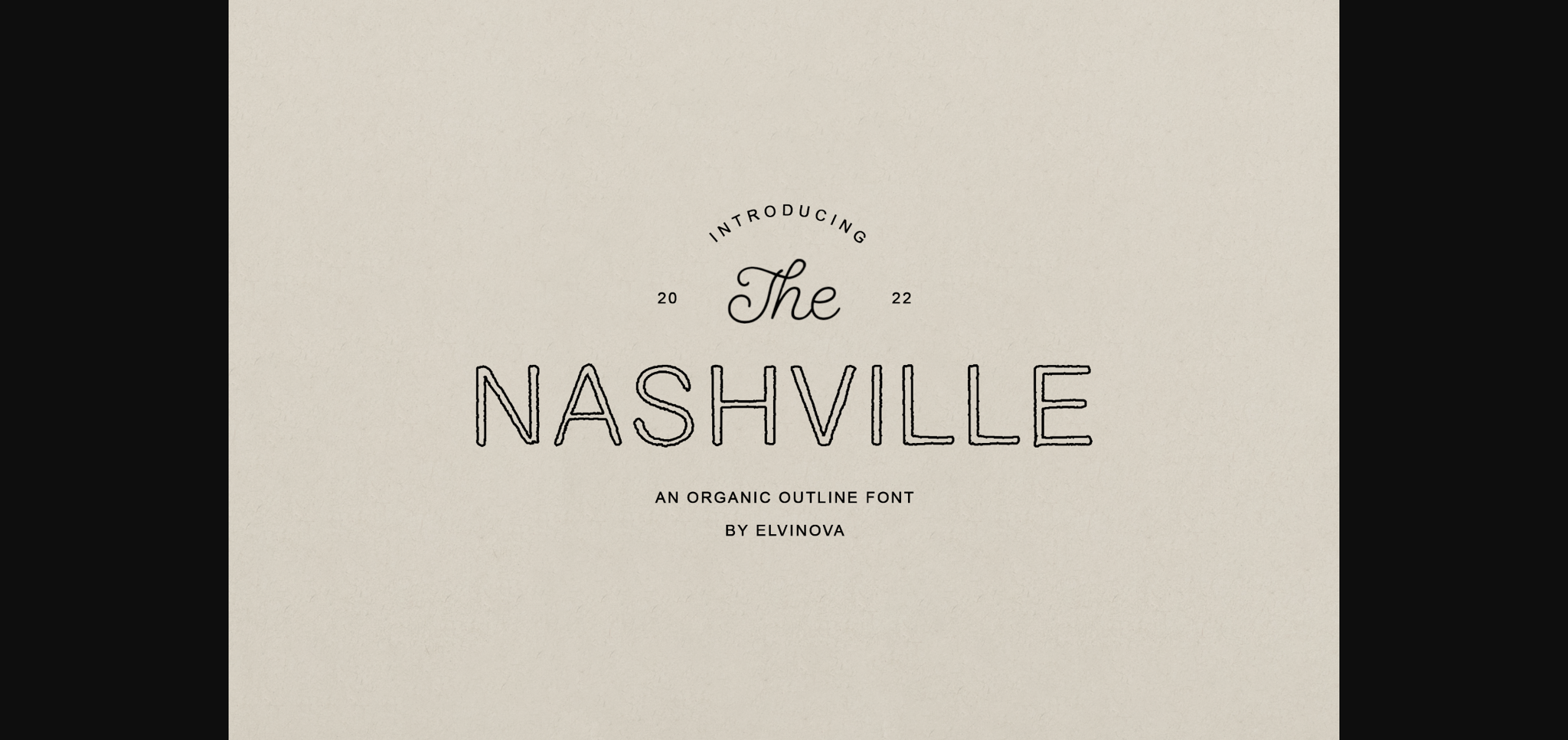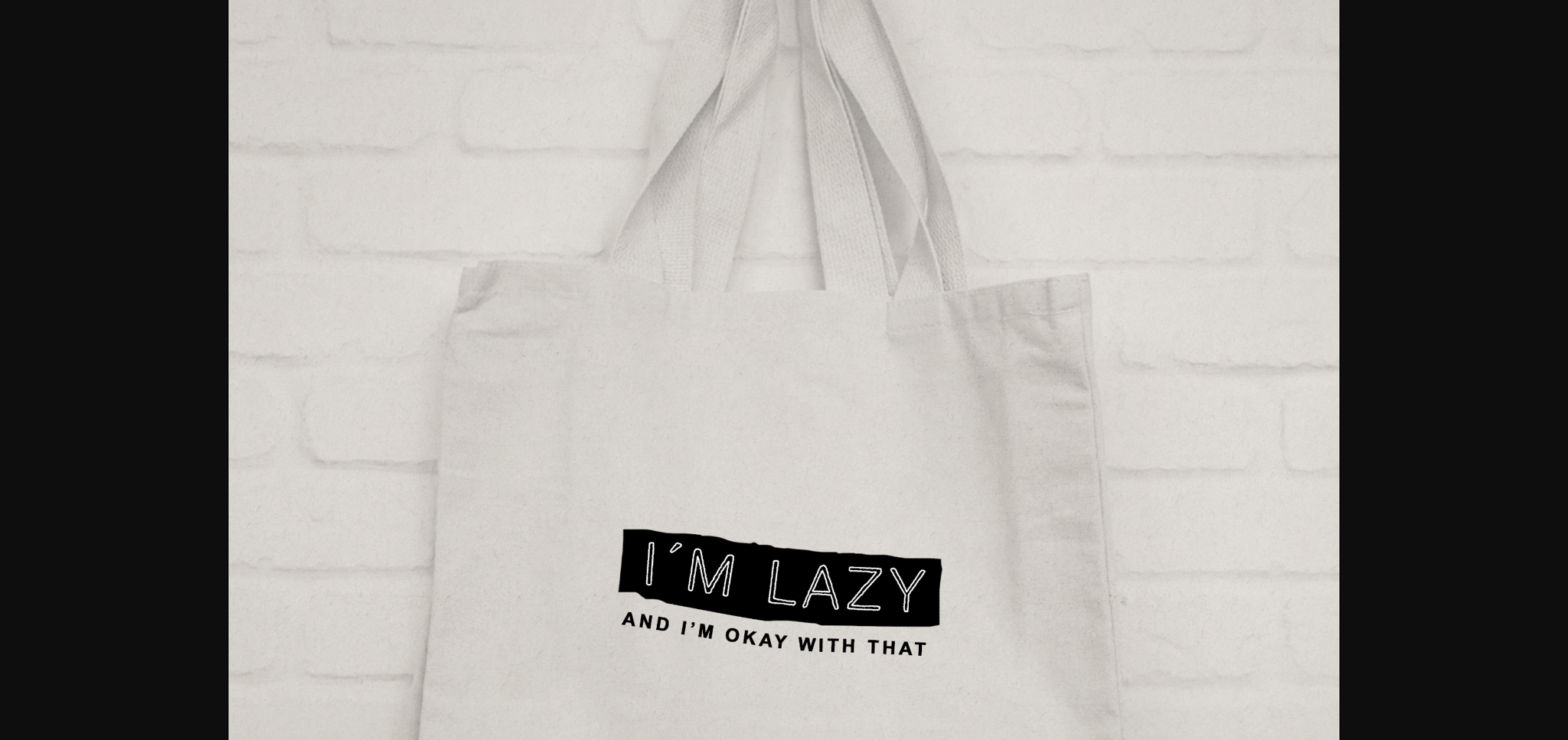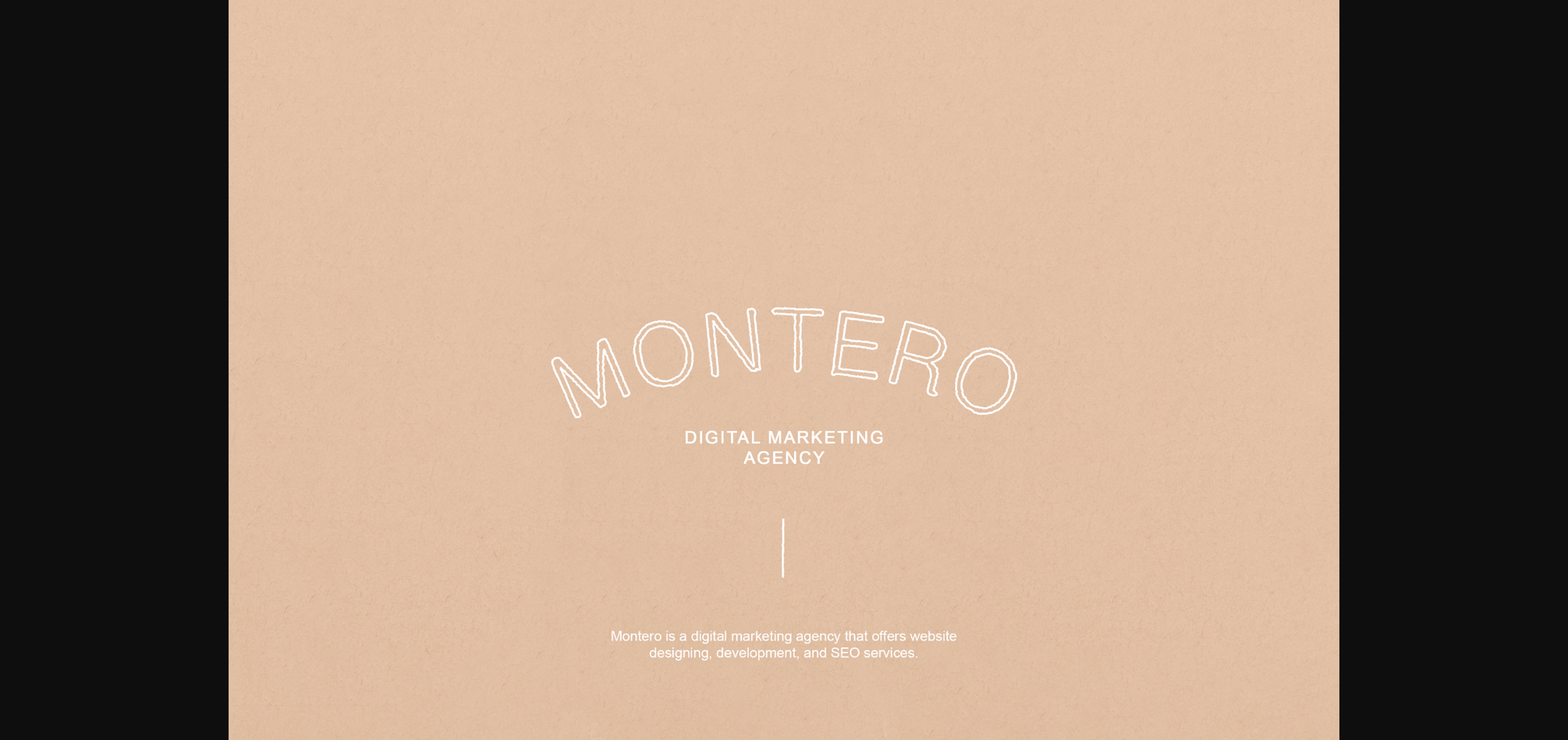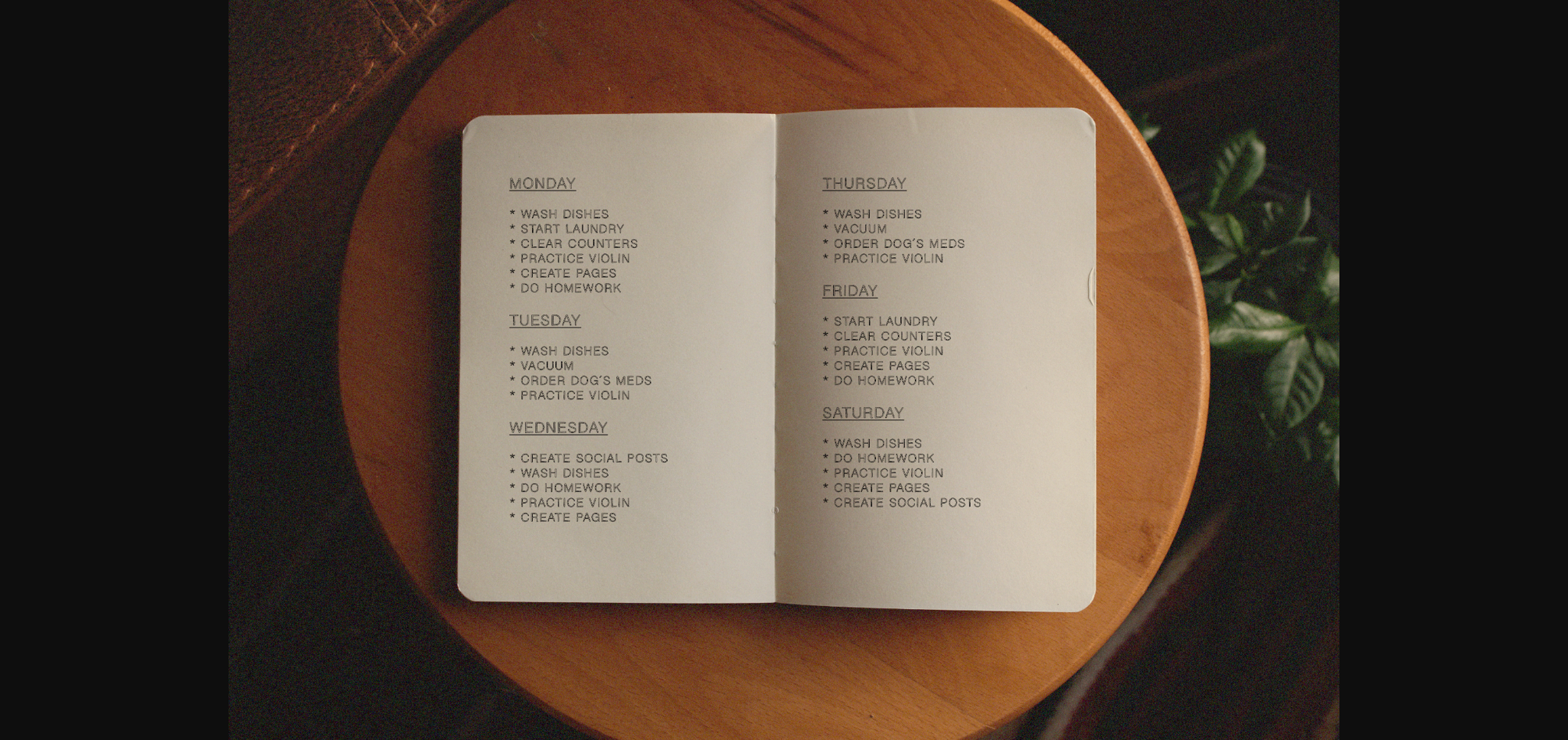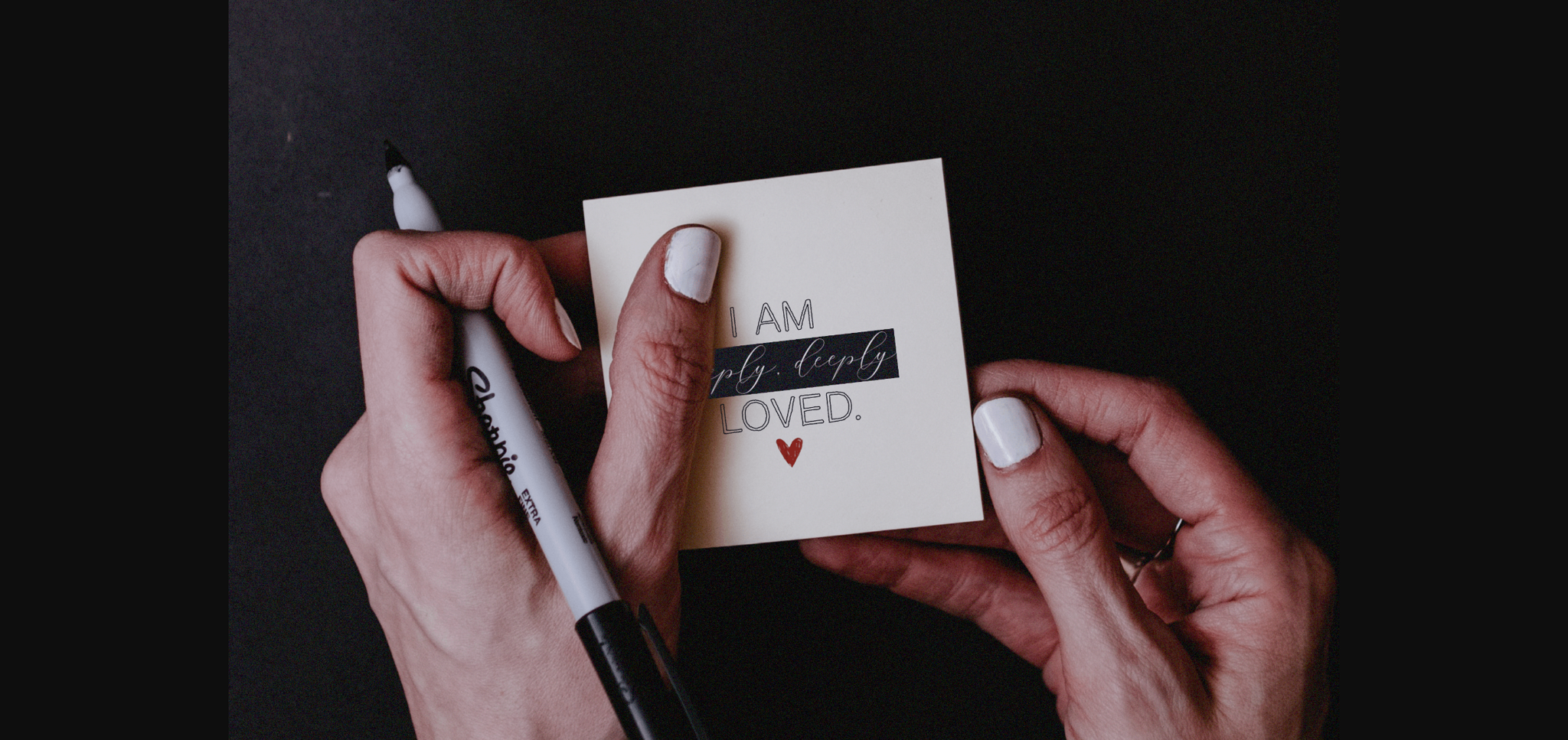
Nashville Font
About Nashville Font
Nashville is a natural and airy outline font that feels fresh and down-to-earth. Its organic design gives text a light and breezy vibe, perfect for adding a touch of rustic charm to your projects. Whether you’re creating signage, branding materials, or anything in between, Nashville’s effortless style brings a touch of countryside warmth to your typography.